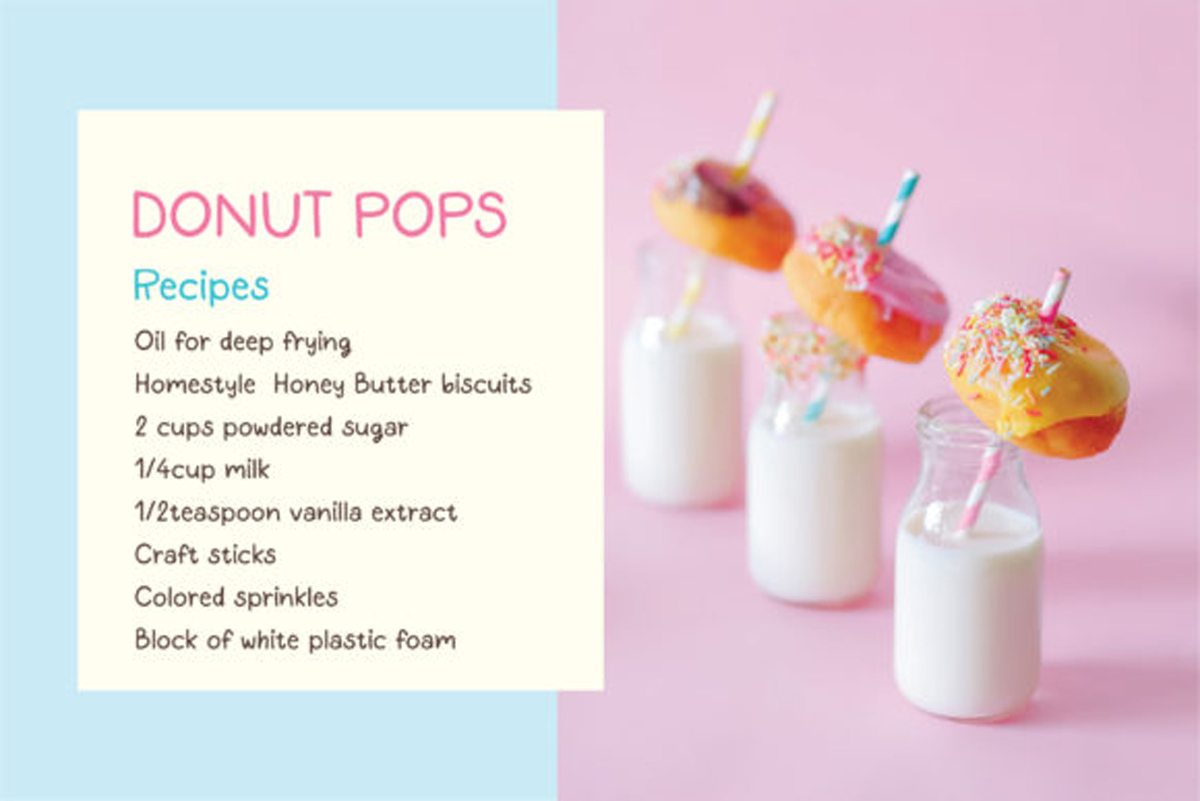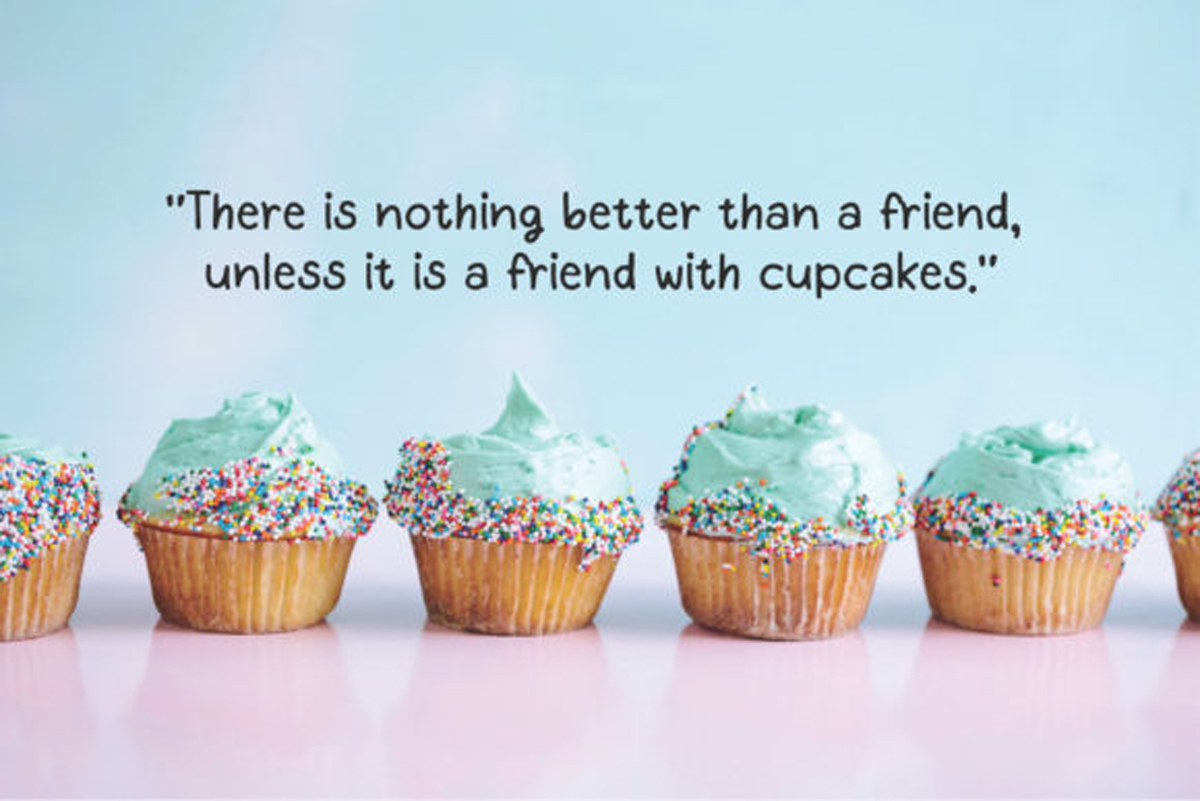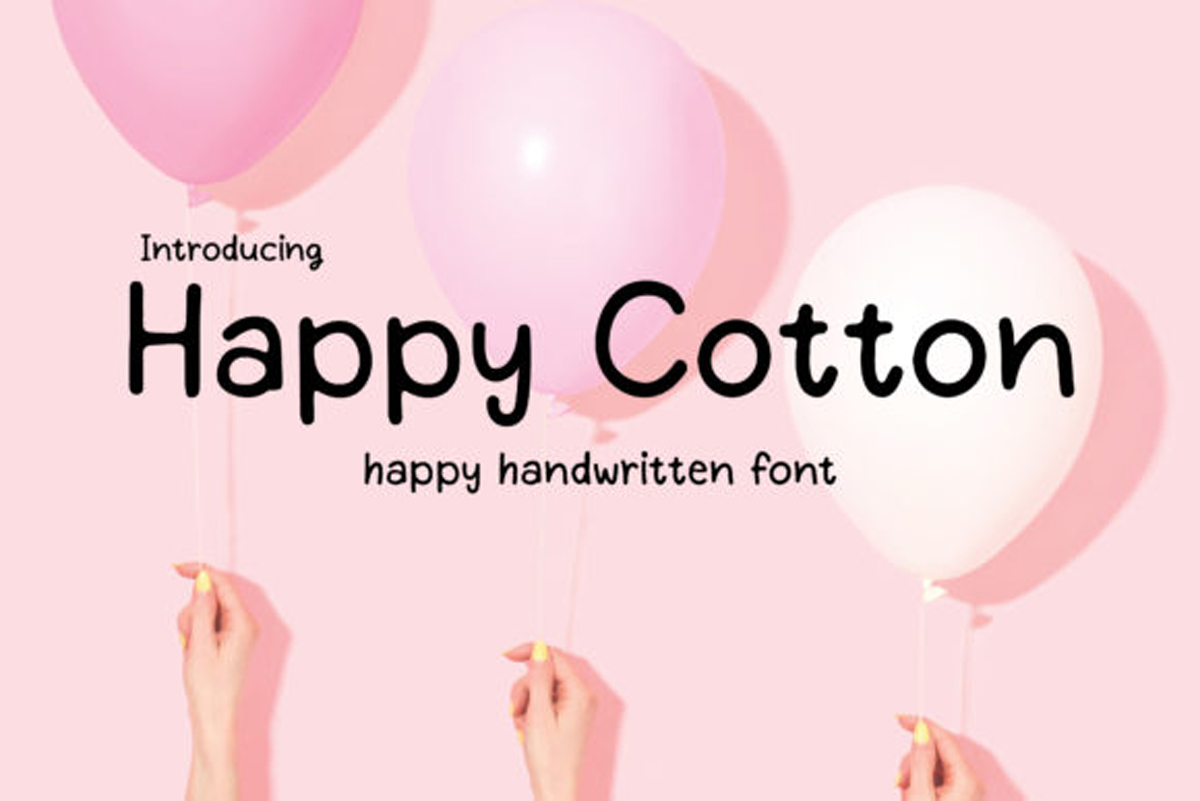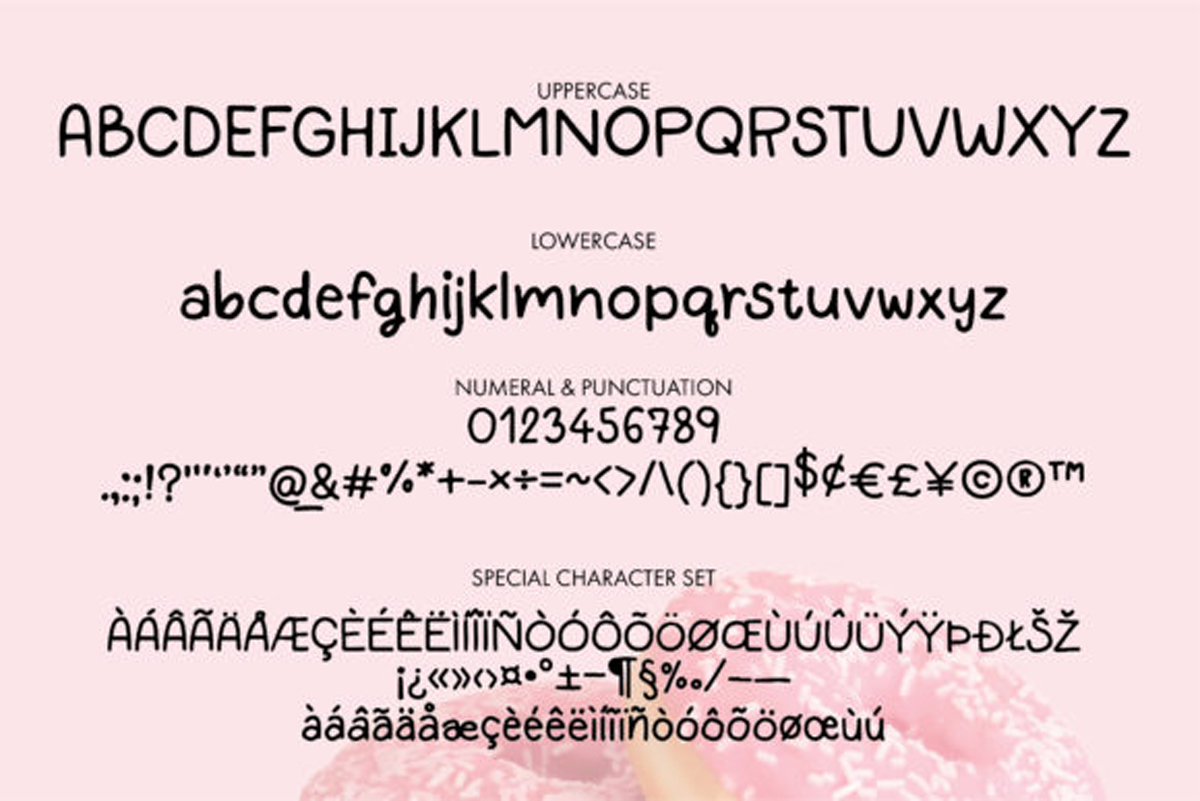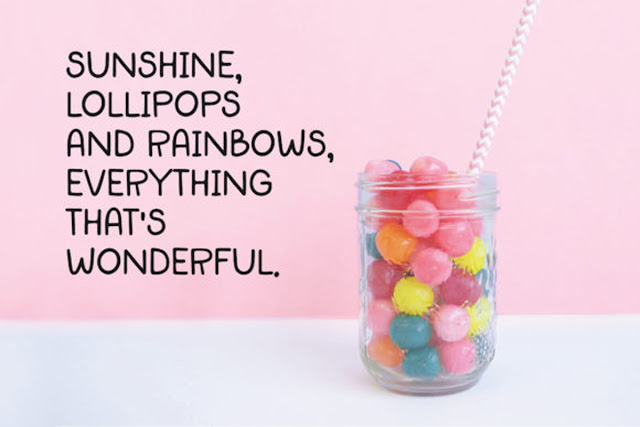
Happy Cotton Font
Free Download Happy Cotton Font with high speed direct link. Happy Cotton is a sweet and friendly handwritten font. Its natural and unique style makes it incredibly fitting to a large pool of designs. The only limit is your imagination!